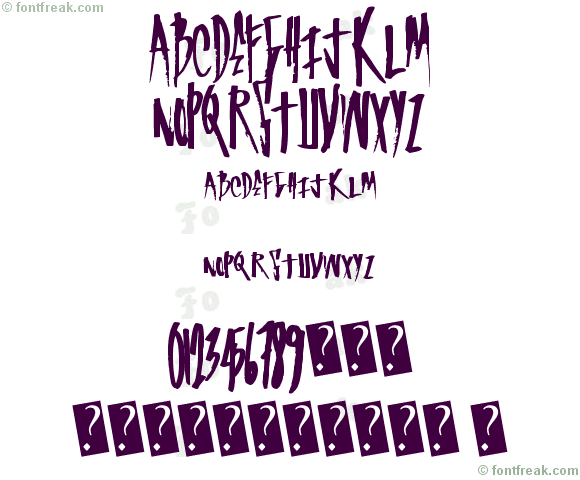
SuperGraf
About SuperGraf
Introducing the SuperGraf font by Xerographer Fonts, a striking display typeface that stands out with its unique aesthetic. This font, released in 2012 as freeware, features a playful, artistic style that blurs the lines between graphic design and handwritten art. The SuperGraf font exhibits a bold stroke weight, creating an eye-catching appearance that commands attention. Its uneven spacing and dynamic letterforms add character, making it ideal for projects that require a touch of creativity and flair.
SuperGraf's distinct visual characteristics include a combination of sharp angles and fluid curves, which contribute to its energetic vibe. This makes it particularly suitable for a variety of creative applications. The font shines in use cases such as vibrant movie posters that seek to capture the viewer's interest, eye-catching restaurant menus that want to convey a fun atmosphere, and trendy event flyers that need to stand out from the crowd. Additionally, the SuperGraf font is perfect for branding projects aimed at a younger demographic, such as clothing lines or music festivals.
The target audience for this font includes graphic designers looking to infuse their projects with originality, small business owners wanting to create memorable marketing materials, and content creators who wish to add a unique touch to their digital content. With its distinctive style and versatile applications, the SuperGraf font is a valuable asset for anyone in the creative field.
What sets the SuperGraf font apart is its ability to convey personality and emotion, making every project feel more engaging and personal. For those seeking a fresh and innovative typeface, the SuperGraf font free download is an opportunity not to be missed. Its artistic flair and versatility make it a standout choice for a variety of creative endeavors.